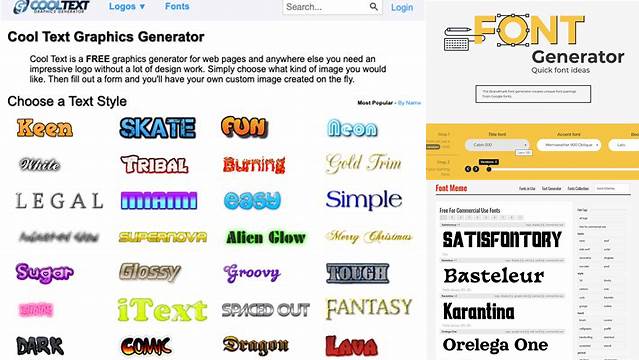
Font Generator: Create Custom Text Online For Free
Hey guys! Ever wanted to spice up your social media posts, presentations, or designs with some cool and unique fonts? Well, you're in the right place! Let's dive into the world of font generators and how you can use them to create awesome text that stands out from the crowd.
What is a Font Generator?
Okay, so what exactly is a font generator? Simply put, it's an online tool that allows you to transform regular text into a variety of stylish and eye-catching fonts. Instead of downloading and installing fonts (which can be a hassle), you can use these generators directly in your browser. You just type in your text, choose a font style, and voilà ! You get a fancy text that you can copy and paste anywhere you want.
The magic behind these generators often involves using Unicode characters. Unicode is a universal character encoding standard that includes a vast range of symbols and characters from different languages. Font generators cleverly use these Unicode characters to mimic the appearance of various font styles. While the output might not be a true font in the traditional sense (like a .ttf or .otf file), it's still a super convenient way to add flair to your text.
The best part? Most of these font generators are completely free to use! You don't need to sign up, pay for a subscription, or download any software. Just head to the website, type in your text, and start experimenting with different styles. Whether you're looking for something elegant, playful, futuristic, or downright wacky, there's a font generator out there that can help you achieve the look you want.
Why Use a Font Generator?
So, why should you even bother using a font generator? Here's a few compelling reasons:
- Stand Out: In a world saturated with standard fonts like Arial and Times New Roman, using a unique font can help your content grab attention and leave a lasting impression.
- No Installation Required: Forget about downloading and installing fonts on your computer. Font generators work directly in your browser, saving you time and storage space.
- Versatility: With a wide range of font styles available, you can find the perfect font to match your brand, message, or personal style.
- Ease of Use: Font generators are incredibly user-friendly. Simply type in your text, choose a font, and copy the output. No technical skills required!
- Free: Most font generators are free to use, making them an accessible option for anyone looking to add some visual appeal to their text.
1. Understanding Font Generators: How They Work
Font generators leverage the power of Unicode characters to create the illusion of different fonts without requiring users to download and install actual font files. This is achieved by mapping standard characters to visually distinct Unicode symbols. Understanding this core mechanism is key to appreciating the simplicity and versatility of these tools. Instead of rendering text using traditional font files (.ttf, .otf), these generators essentially translate your input into a sequence of special characters that resemble various font styles. This approach makes them platform-independent and accessible across different devices and operating systems. The output, while not a true font, retains its visual style when copied and pasted into various applications and websites. For instance, if you type 'Hello' into a generator and select a cursive style, the generator will replace each letter with corresponding cursive-like Unicode characters. The resulting text can then be used on social media, in documents, or anywhere else where you want to add a touch of style without the complexity of font management. Moreover, the fact that these characters are universally supported ensures that they display correctly on most platforms, making font generators a reliable choice for enhancing your text.
2. Exploring Different Types of Font Generators
There's a wide variety of font generators out there, each with its unique features and capabilities. Some generators focus on creating fancy text for social media, offering a range of decorative styles like cursive, bubble letters, and gothic fonts. Others are designed for more specific purposes, such as generating code-like fonts for developers or creating artistic text for graphic design projects. You might encounter generators that specialize in creating stylized text with symbols and emojis, adding extra flair to your messages. Additionally, some font generators offer advanced customization options, allowing you to adjust the size, spacing, and color of the generated text. The key is to explore different types of generators and find the ones that best suit your needs. For example, if you're looking to create eye-catching Instagram captions, a generator with a wide selection of decorative fonts would be ideal. If you're working on a coding project, a generator that produces monospaced fonts with clear distinction between characters would be more appropriate. Ultimately, understanding the different types of font generators available will help you make the most of these tools and create text that truly stands out.
3. Free Font Generators: What to Look For
When seeking out free font generators, there are several factors to consider to ensure you're getting the best possible experience. First and foremost, look for generators that offer a wide variety of font styles. A good generator should provide a diverse selection of options, from elegant scripts to bold sans-serifs, allowing you to find the perfect match for your project. Secondly, pay attention to the user interface. A clean and intuitive interface will make it easier to navigate the generator and experiment with different styles. Ideally, the generator should allow you to preview the generated text in real-time as you make changes. Another important factor is the absence of intrusive ads or watermarks. While some generators may display ads to support their services, excessive or disruptive ads can detract from the user experience. Additionally, make sure the generator doesn't add any unwanted watermarks to the generated text. Finally, consider the generator's compatibility with different platforms and applications. The generated text should be easily copyable and pasteable into various social media platforms, messaging apps, and document editors. By keeping these factors in mind, you can find a free font generator that meets your needs and provides a seamless and enjoyable experience.
4. Custom Font Generators: Creating Your Own Style
For those seeking even more control over their text styling, custom font generators offer a unique opportunity to create personalized font designs. These tools typically provide advanced customization options, allowing you to adjust various aspects of the font's appearance, such as the letter spacing, character width, and overall design. Some custom font generators even allow you to upload your own images or drawings to be incorporated into the font. This level of customization opens up a world of possibilities for creating truly unique and distinctive text styles. Whether you're looking to create a signature font for your brand or design a custom typeface for a special project, a custom font generator can help you bring your vision to life. However, it's important to note that custom font generation often requires more technical knowledge and design skills than using pre-made font styles. You may need to experiment with different settings and parameters to achieve the desired look. Additionally, some custom font generators may require a paid subscription or license. Despite these challenges, the ability to create your own font style can be a rewarding and empowering experience, allowing you to express your creativity and stand out from the crowd.
5. Online Text Changers: A Quick Overview
Online text changers are versatile tools that go beyond simple font generation, offering a range of text manipulation features. These tools can modify the case of your text (uppercase, lowercase, title case), reverse the order of characters, convert text to ASCII art, and even generate random text. Some online text changers also include advanced features such as text encryption, URL encoding, and HTML escaping. The key advantage of these tools is their convenience and ease of use. You can quickly transform your text without having to install any software or write any code. Online text changers are particularly useful for tasks such as preparing text for different platforms, generating placeholder text, or creating unique text effects. For example, you might use a text changer to convert a block of text to uppercase for emphasis, or to reverse the order of words in a sentence for a creative effect. When choosing an online text changer, consider the range of features offered and the user interface. Look for a tool that provides the specific functionalities you need and is easy to navigate. Many online text changers are free to use, making them an accessible option for anyone looking to manipulate text quickly and easily. By leveraging the power of online text changers, you can streamline your workflow and enhance your text-based projects.
6. Font Generator for Social Media
Creating engaging content for social media often requires eye-catching visuals, and that includes text. A font generator specifically designed for social media can be a game-changer. These generators typically offer a wide range of trendy and attention-grabbing font styles that are perfect for Instagram captions, Twitter bios, Facebook posts, and more. You can find fonts that mimic handwriting, bubble letters, graffiti styles, and other popular designs. The key is to choose a font that aligns with your brand and the message you're trying to convey. For example, if you're promoting a playful and fun product, a whimsical font might be appropriate. If you're sharing a serious or informative post, a clean and modern font would be a better choice. In addition to font styles, some social media font generators also offer customization options such as text color, background color, and shadow effects. These features allow you to further enhance the visual appeal of your text and make it stand out in the crowded social media landscape. When using a font generator for social media, keep in mind the character limits of each platform and make sure your text is easily readable on different devices. By using a social media font generator strategically, you can create content that grabs attention, reinforces your brand, and engages your audience.
7. Custom Text Generator Online
A custom text generator online takes the concept of font generation a step further by allowing you to create unique and personalized text designs. These tools typically provide a range of customization options, such as font size, color, spacing, and effects. Some custom text generators even allow you to upload your own images or textures to be used as backgrounds or overlays for your text. This level of control empowers you to create text that perfectly matches your brand, style, or project requirements. Whether you're designing a logo, creating a website banner, or crafting a social media graphic, a custom text generator can help you bring your vision to life. The key is to experiment with different settings and options until you achieve the desired look. For example, you might use a custom text generator to create a vintage-style logo with a distressed texture, or to design a modern website banner with a gradient background. When using a custom text generator online, be mindful of readability and ensure that your text is easily legible on different devices and screen sizes. By leveraging the power of custom text generation, you can create text that is both visually appealing and effective in conveying your message.
8. Stylish Font Generator
If you're looking to add a touch of elegance and sophistication to your text, a stylish font generator is the perfect tool. These generators offer a curated selection of fonts that are designed to be visually appealing and aesthetically pleasing. You can find fonts that mimic calligraphy, vintage typefaces, and modern minimalist designs. The key is to choose a font that complements the overall style of your project. For example, if you're creating a wedding invitation, a delicate script font would be a fitting choice. If you're designing a website for a luxury brand, a clean and sophisticated sans-serif font would be more appropriate. In addition to font styles, some stylish font generators also offer customization options such as kerning, letter spacing, and line height. These features allow you to fine-tune the appearance of your text and ensure that it looks its best. When using a stylish font generator, pay attention to the details and strive for a balanced and harmonious design. By choosing the right font and carefully adjusting its settings, you can create text that exudes style and sophistication.
9. Fancy Text Generator for Free
Who doesn't love free stuff? A fancy text generator for free allows you to create eye-catching text without spending a dime. These generators offer a variety of decorative font styles that can add flair and personality to your projects. You can find fonts with ornate swirls, playful curves, and bold geometric shapes. The key is to choose a font that matches the tone and style of your message. For example, if you're creating a birthday card, a whimsical and colorful font would be a fun choice. If you're designing a poster for a music festival, a bold and edgy font would be more appropriate. In addition to font styles, some free fancy text generators also offer customization options such as text color, shadow effects, and background colors. These features allow you to further enhance the visual appeal of your text and make it stand out. When using a fancy text generator for free, be mindful of readability and avoid using fonts that are too difficult to decipher. By choosing a font that is both visually appealing and easy to read, you can create text that grabs attention and effectively conveys your message.
10. Cool Text Generator Online
Want to make your text look awesome? A cool text generator online is the answer. These generators offer a variety of unique and trendy font styles that can instantly elevate your designs. You can find fonts with glitch effects, 3D renderings, and futuristic designs. The key is to choose a font that aligns with your personal style and the message you're trying to convey. For example, if you're creating a gaming logo, a bold and edgy font with a glitch effect would be a great choice. If you're designing a website for a tech startup, a clean and modern font with a futuristic look would be more appropriate. In addition to font styles, some cool text generators also offer customization options such as text animation, gradient colors, and outline effects. These features allow you to create text that is dynamic and visually engaging. When using a cool text generator online, experiment with different styles and effects until you find the perfect combination. By choosing a font that is both stylish and unique, you can create text that truly stands out from the crowd.
11. Online Font Style Changer
An online font style changer is a versatile tool that allows you to transform your text into a variety of different font styles with just a few clicks. These tools typically offer a wide selection of fonts, ranging from classic serif fonts to modern sans-serif fonts, as well as decorative and script fonts. The key is to choose a font that matches the tone and style of your message. For example, if you're writing a formal letter, a traditional serif font like Times New Roman would be a good choice. If you're designing a website for a creative agency, a modern sans-serif font like Helvetica or Arial would be more appropriate. In addition to font styles, some online font style changers also offer customization options such as font size, color, and spacing. These features allow you to fine-tune the appearance of your text and ensure that it looks its best. When using an online font style changer, be mindful of readability and avoid using fonts that are too small or difficult to read. By choosing a font that is both visually appealing and easy to read, you can create text that effectively conveys your message.
12. Free Online Font Generator Tools
There are numerous free online font generator tools available on the internet, each offering a unique set of features and font styles. These tools are a great resource for anyone who wants to create stylish and eye-catching text without having to download or install any software. Some popular free online font generator tools include LingoJam, FontGet, and CoolSymbol. These tools offer a wide variety of font styles, ranging from simple and elegant to bold and decorative. The key is to explore different tools and find the ones that best suit your needs. When choosing a free online font generator tool, consider factors such as the number of font styles available, the ease of use, and the presence of any ads or watermarks. Some tools may require you to create an account or sign up for a newsletter in order to access all of the features. However, most free online font generator tools are relatively easy to use and offer a good selection of font styles for creating stylish text.
13. Best Online Font Generator Websites
Navigating the web for the best online font generator websites can be overwhelming. Here's a curated list to get you started. LingoJam is popular for its ease of use and variety of quirky fonts, ideal for social media. FontGet offers a more extensive library of fonts, catering to diverse design needs. CoolSymbol stands out with its unique symbol-based font styles, perfect for adding a creative twist. These websites generally provide a user-friendly interface where you type your text, select a font style, and copy the generated text. When evaluating these sites, consider factors such as font variety, customization options, and overall user experience. Some websites may offer additional features like font previews or the ability to download generated fonts for offline use. Ultimately, the best online font generator website for you will depend on your specific needs and preferences. Experiment with a few different options to discover which one provides the best combination of font styles, features, and usability.
14. Simple Font Generator
For those who prefer a straightforward approach, a simple font generator is the ideal solution. These generators focus on providing a clean and intuitive interface with a limited but carefully curated selection of font styles. The emphasis is on ease of use and efficiency, allowing you to quickly transform your text without getting bogged down by complex options or overwhelming choices. A simple font generator is perfect for creating basic yet stylish text for headings, captions, or short messages. The font styles typically offered include classic serif fonts, clean sans-serif fonts, and a few decorative options. Customization options are usually limited to font size and color, but this simplicity can be an advantage for users who want to quickly generate text without having to make too many decisions. When choosing a simple font generator, look for one that has a clear and uncluttered interface and a selection of font styles that meet your basic needs. These tools are perfect for creating stylish text in a matter of seconds, making them a valuable asset for anyone who wants to add a touch of visual flair to their projects.
15. Font Generator for Instagram
Instagram is a visually driven platform, so using a font generator to create eye-catching captions and bios is a smart move. A font generator specifically designed for Instagram will offer a variety of trendy and stylish fonts that are perfect for grabbing attention in the crowded Instagram feed. These fonts often include script fonts, bold fonts, and decorative fonts with symbols and emojis. The key is to choose a font that aligns with your brand and the overall aesthetic of your Instagram profile. For example, if you have a fashion blog, a chic script font would be a great choice for your captions. If you have a fitness account, a bold and impactful font would be more appropriate. In addition to font styles, some font generators for Instagram also offer customization options such as text color, background color, and shadow effects. These features allow you to further enhance the visual appeal of your text and make it stand out. When using a font generator for Instagram, be sure to test the font on different devices to ensure that it looks good on both mobile and desktop. By using a font generator strategically, you can create Instagram content that is both visually appealing and engaging.
16. Text Style Generator Online
A text style generator online goes beyond simple font changes by offering a wider range of text formatting options. These tools can modify the appearance of your text in various ways, such as adding shadows, outlines, gradients, and textures. Some text style generators also allow you to create 3D text effects or add animations to your text. The key is to experiment with different styles and options to create a unique and eye-catching look. For example, you might use a text style generator to create a retro-style text effect with a drop shadow and a vintage texture, or to design a futuristic text effect with a glowing outline and a gradient fill. When using a text style generator online, be mindful of readability and avoid using styles that make your text difficult to read. By choosing a style that is both visually appealing and easy to read, you can create text that effectively conveys your message.
17. Free Online Text Generator
Looking for a way to spice up your text without spending any money? A free online text generator is the perfect solution. These tools offer a variety of font styles and text effects that you can use to create stylish and eye-catching text for free. Some free online text generators also allow you to customize the appearance of your text by changing the font size, color, and spacing. The key is to explore different tools and find the ones that best suit your needs. When choosing a free online text generator, consider factors such as the number of font styles available, the ease of use, and the presence of any ads or watermarks. Some tools may require you to create an account or sign up for a newsletter in order to access all of the features. However, most free online text generators are relatively easy to use and offer a good selection of font styles and effects for creating stylish text.
18. Best Font Changer Online
Finding the best font changer online depends on your specific needs and preferences. However, some popular and highly rated options include FontSpace, DaFont, and Google Fonts. FontSpace offers a vast library of free fonts, while DaFont is known for its diverse selection of fonts in various styles. Google Fonts is a great option for web designers, as it provides a collection of open-source fonts that are optimized for online use. When choosing a font changer online, consider factors such as the number of fonts available, the ease of use, and the licensing terms. Some fonts may be free for personal use only, while others may be licensed for commercial use. It's important to read the licensing terms carefully before using any font in a commercial project. By exploring different font changers online and considering your specific needs, you can find the perfect tool for creating stylish and professional-looking text.
19. Cool Font Generator for Free
A cool font generator for free is an excellent resource for adding some pizzazz to your text without breaking the bank. These generators typically offer a variety of trendy and unique font styles that can help your text stand out. You can find fonts with graffiti styles, bubble letters, and distorted effects. The key is to choose a font that aligns with your personal style and the message you're trying to convey. For example, if you're creating a poster for a party, a bold and playful font with bubble letters would be a great choice. If you're designing a website for a tech company, a clean and modern font with a geometric design would be more appropriate. In addition to font styles, some cool font generators also offer customization options such as text color, shadow effects, and outline effects. These features allow you to further enhance the visual appeal of your text and make it truly unique. When using a cool font generator for free, experiment with different styles and effects until you find the perfect combination. By choosing a font that is both stylish and attention-grabbing, you can create text that leaves a lasting impression.
20. Online Text Converter Font
An online text converter font is a handy tool for transforming your text into different font styles without the need to download any software. These converters typically offer a variety of font options, ranging from classic serif fonts to modern sans-serif fonts, as well as decorative and script fonts. The key is to choose a font that matches the tone and style of your message. For example, if you're writing a formal invitation, a traditional serif font like Times New Roman would be a good choice. If you're designing a website for a creative agency, a modern sans-serif font like Helvetica or Arial would be more appropriate. In addition to font styles, some online text converter fonts also offer customization options such as font size, color, and spacing. These features allow you to fine-tune the appearance of your text and ensure that it looks its best. When using an online text converter font, be mindful of readability and avoid using fonts that are too small or difficult to read. By choosing a font that is both visually appealing and easy to read, you can create text that effectively conveys your message.
21. Free Font Style Generator Online
A free font style generator online is a great resource for exploring different font options and creating stylish text without spending any money. These generators typically offer a wide variety of font styles, ranging from classic serif fonts to modern sans-serif fonts, as well as decorative and script fonts. The key is to experiment with different styles and find the ones that best suit your needs. When choosing a free font style generator online, consider factors such as the number of font styles available, the ease of use, and the presence of any ads or watermarks. Some tools may require you to create an account or sign up for a newsletter in order to access all of the features. However, most free font style generators online are relatively easy to use and offer a good selection of font styles for creating stylish text. By using a free font style generator, you can create text that is both visually appealing and effective in conveying your message.
22. Online Fancy Text Generator
An online fancy text generator is a fun and easy way to add some flair to your text. These generators offer a variety of decorative font styles that can make your text stand out. You can find fonts with ornate swirls, playful curves, and bold geometric shapes. The key is to choose a font that matches the tone and style of your message. For example, if you're creating a birthday card, a whimsical and colorful font would be a fun choice. If you're designing a poster for a music festival, a bold and edgy font would be more appropriate. In addition to font styles, some online fancy text generators also offer customization options such as text color, shadow effects, and background colors. These features allow you to further enhance the visual appeal of your text and make it stand out. When using an online fancy text generator, be mindful of readability and avoid using fonts that are too difficult to decipher. By choosing a font that is both visually appealing and easy to read, you can create text that grabs attention and effectively conveys your message.
23. Unique Font Generator Online
A unique font generator online is your go-to tool for creating text that truly stands out from the crowd. These generators offer a selection of unusual and distinctive font styles that you won't find anywhere else. You can find fonts with hand-drawn styles, pixelated designs, and abstract forms. The key is to choose a font that reflects your personal style and the unique character of your brand. For example, if you're creating a logo for an art gallery, a hand-drawn font would be a great choice. If you're designing a website for a video game company, a pixelated font would be more appropriate. In addition to font styles, some unique font generators also offer customization options such as text animation, gradient colors, and outline effects. These features allow you to create text that is dynamic and visually engaging. When using a unique font generator online, don't be afraid to experiment with different styles and effects. By choosing a font that is both original and eye-catching, you can create text that leaves a lasting impression.
24. Font Generator Free Download
While many font generators operate online, some users prefer the option of a font generator free download. This allows you to use the generator offline without needing an internet connection. However, it's important to exercise caution when downloading software from the internet, as it may contain malware or viruses. Only download font generators from reputable sources and be sure to scan the downloaded files with a virus scanner before installing them. When choosing a font generator for free download, consider factors such as the number of font styles available, the ease of use, and the system requirements. Some font generators may require a specific operating system or version of software in order to run properly. By carefully selecting a font generator and following safe download practices, you can enjoy the benefits of offline font generation without putting your computer at risk.
25. Cool Font Changer Online
A cool font changer online is an excellent way to add some personality and style to your text. These changers offer a variety of trendy and unique font styles that can help your text stand out. You can find fonts with graffiti styles, bubble letters, and distorted effects. The key is to choose a font that aligns with your personal style and the message you're trying to convey. For example, if you're creating a poster for a party, a bold and playful font with bubble letters would be a great choice. If you're designing a website for a tech company, a clean and modern font with a geometric design would be more appropriate. In addition to font styles, some cool font changers also offer customization options such as text color, shadow effects, and outline effects. These features allow you to further enhance the visual appeal of your text and make it truly unique. When using a cool font changer online, experiment with different styles and effects until you find the perfect combination. By choosing a font that is both stylish and attention-grabbing, you can create text that leaves a lasting impression.
26. Text to Font Generator
A text to font generator is a specialized tool that allows you to convert existing text into a specific font style. This can be useful for a variety of purposes, such as creating logos, designing websites, or generating social media graphics. The key is to choose a font that matches the tone and style of your message. For example, if you're creating a logo for a luxury brand, a sophisticated serif font would be a good choice. If you're designing a website for a tech startup, a modern sans-serif font would be more appropriate. In addition to font styles, some text to font generators also offer customization options such as font size, color, and spacing. These features allow you to fine-tune the appearance of your text and ensure that it looks its best. When using a text to font generator, be mindful of readability and avoid using fonts that are too small or difficult to read. By choosing a font that is both visually appealing and easy to read, you can create text that effectively conveys your message.
27. Best Free Font Generator
Finding the best free font generator can be a quest, but it's worth the effort to find a tool that suits your needs. Some popular and highly rated options include FontStruct, BirdFont, and FontForge. FontStruct is a web-based font editor that allows you to create your own fonts from geometric shapes. BirdFont is a free and open-source font editor that is available for Windows, macOS, and Linux. FontForge is a powerful font editor that is used by professional typographers. When choosing the best free font generator, consider factors such as the ease of use, the number of font styles available, and the features offered. Some font generators may require you to have some knowledge of typography in order to use them effectively. However, most free font generators are relatively easy to use and offer a good selection of font styles and effects for creating stylish text.
28. Free Text Font Generator
A free text font generator is a valuable resource for anyone looking to add some visual flair to their text without spending any money. These generators typically offer a wide variety of font styles, ranging from classic serif fonts to modern sans-serif fonts, as well as decorative and script fonts. The key is to experiment with different styles and find the ones that best suit your needs. When choosing a free text font generator, consider factors such as the number of font styles available, the ease of use, and the presence of any ads or watermarks. Some tools may require you to create an account or sign up for a newsletter in order to access all of the features. However, most free text font generators are relatively easy to use and offer a good selection of font styles for creating stylish text. By using a free text font generator, you can create text that is both visually appealing and effective in conveying your message.
29. Online Font Maker
An online font maker is a powerful tool that allows you to create your own custom fonts from scratch. These tools typically provide a range of drawing tools and editing features that you can use to design each character in your font. The key is to have some knowledge of typography and design principles in order to create a font that is both visually appealing and functional. When choosing an online font maker, consider factors such as the ease of use, the features offered, and the licensing terms. Some font makers may allow you to sell your fonts commercially, while others may only allow you to use them for personal projects. By using an online font maker, you can create fonts that are truly unique and reflect your personal style.
30. Custom Font Style Generator
A custom font style generator is the ultimate tool for creating text that is truly one-of-a-kind. These generators allow you to customize every aspect of your font, from the shape of the characters to the spacing between them. The key is to have a clear vision of what you want your font to look like and to be willing to experiment with different settings and options. When choosing a custom font style generator, consider factors such as the ease of use, the features offered, and the level of control you have over the design process. Some custom font style generators may require you to have some knowledge of typography in order to use them effectively. However, most custom font style generators are relatively user-friendly and offer a good selection of tools and features for creating unique and stylish fonts.
So there you have it! A comprehensive guide to the wonderful world of font generators. Have fun experimenting and creating some awesome text!